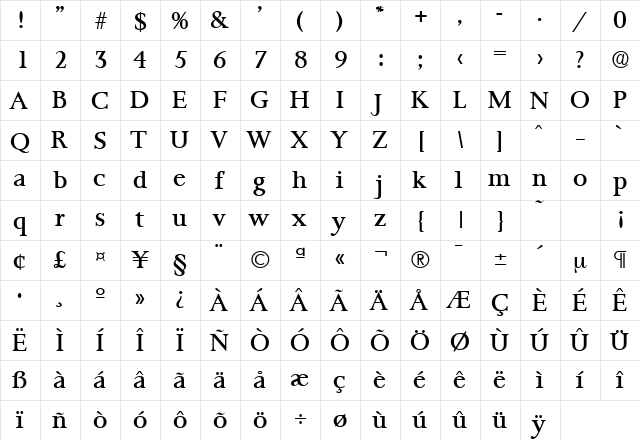
Palermo-Serial Regular
Design Context for Palermo-Serial Typeface
Palermo-Serial offers clean, dependable letterforms without strong stylistic allegiance, making it a practical choice for designers who need flexibility.